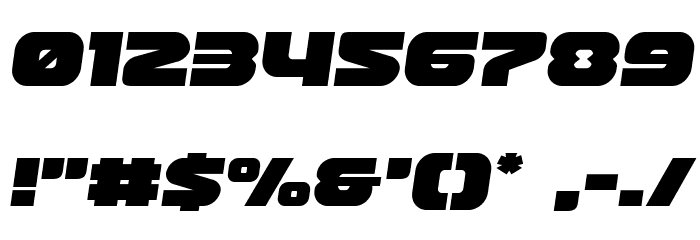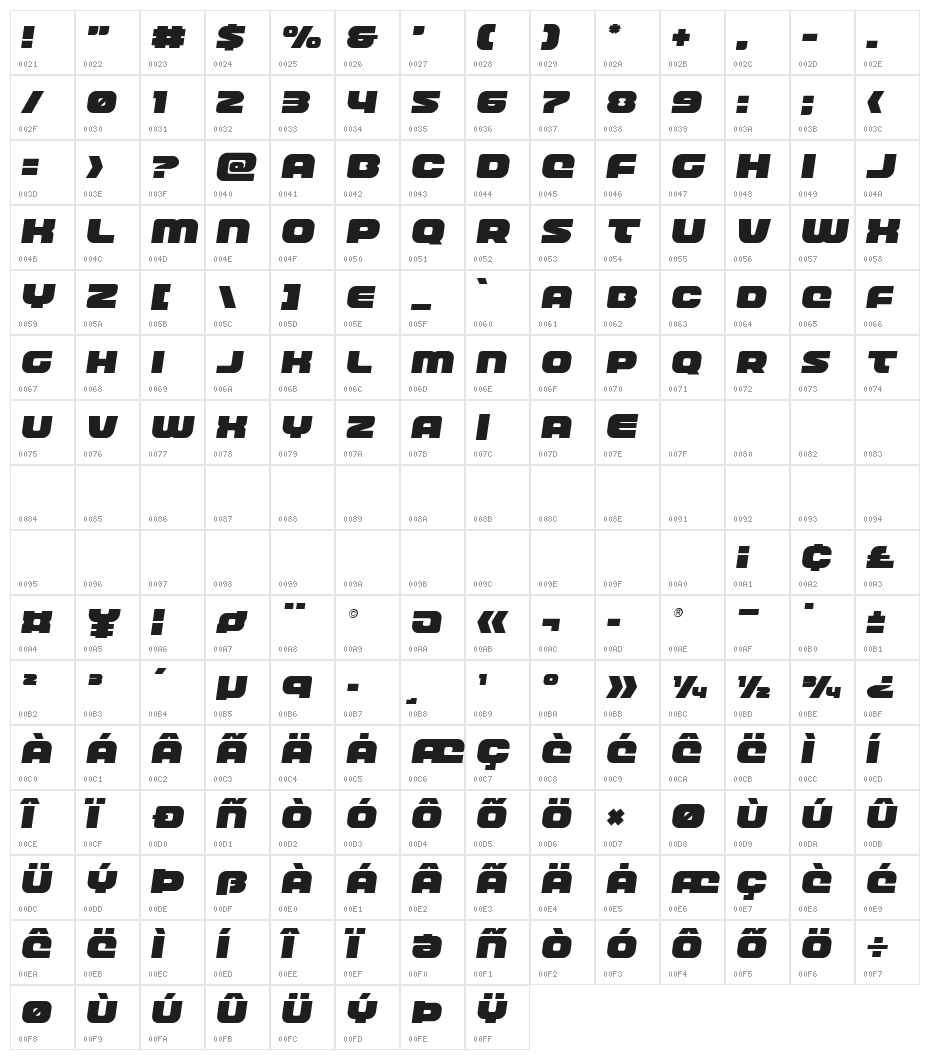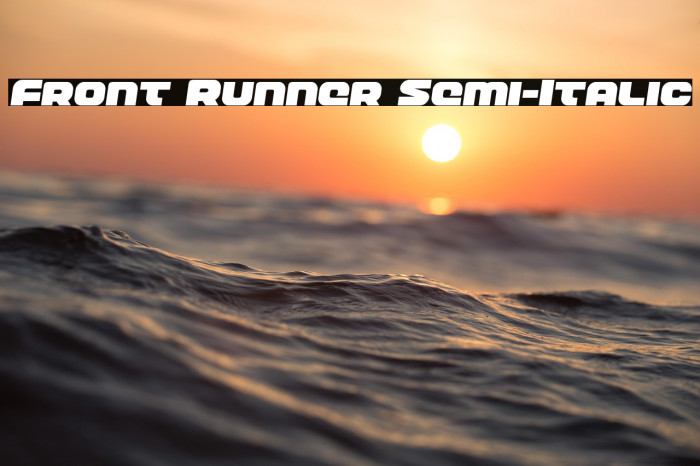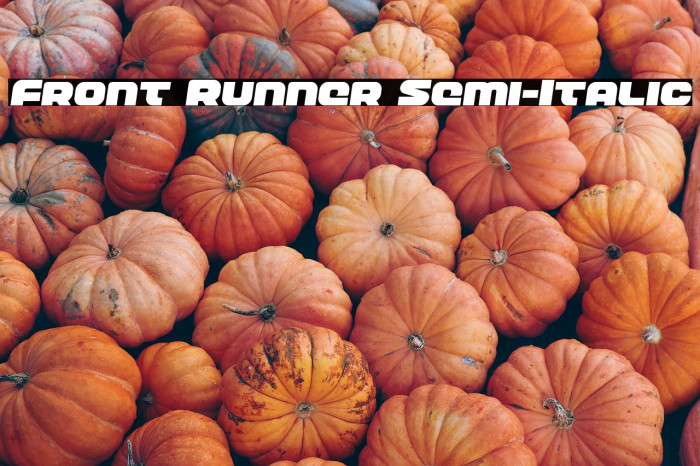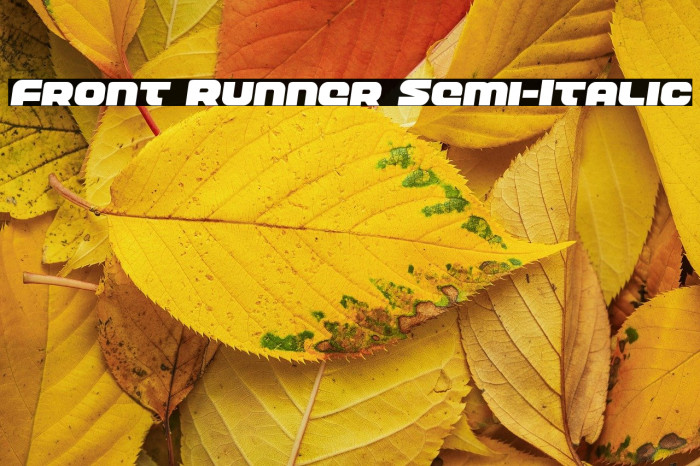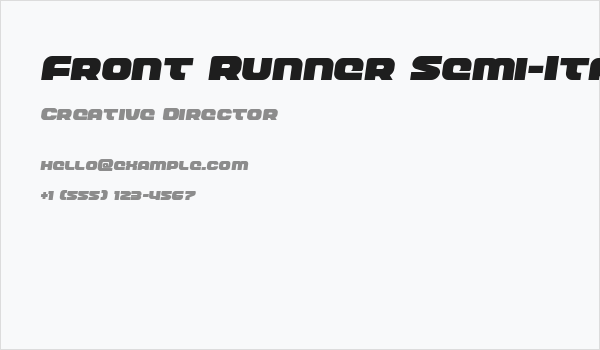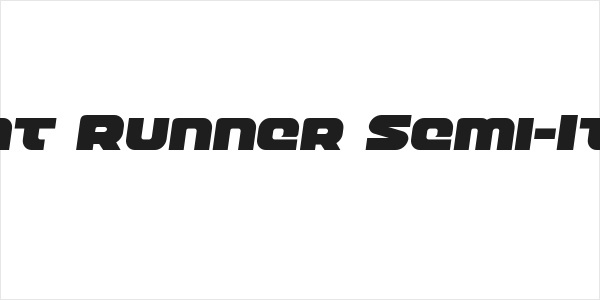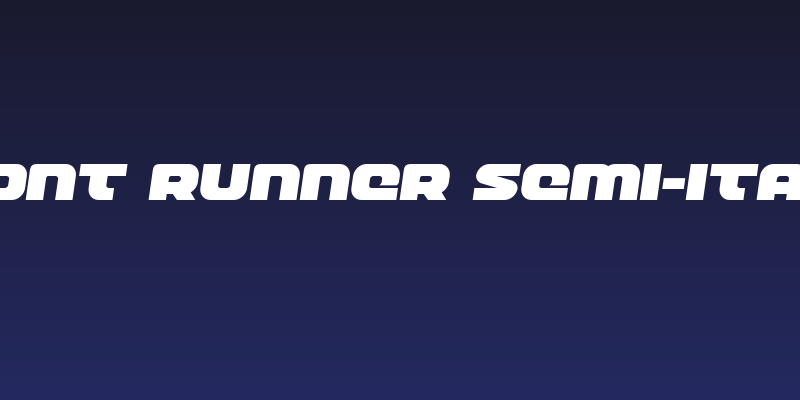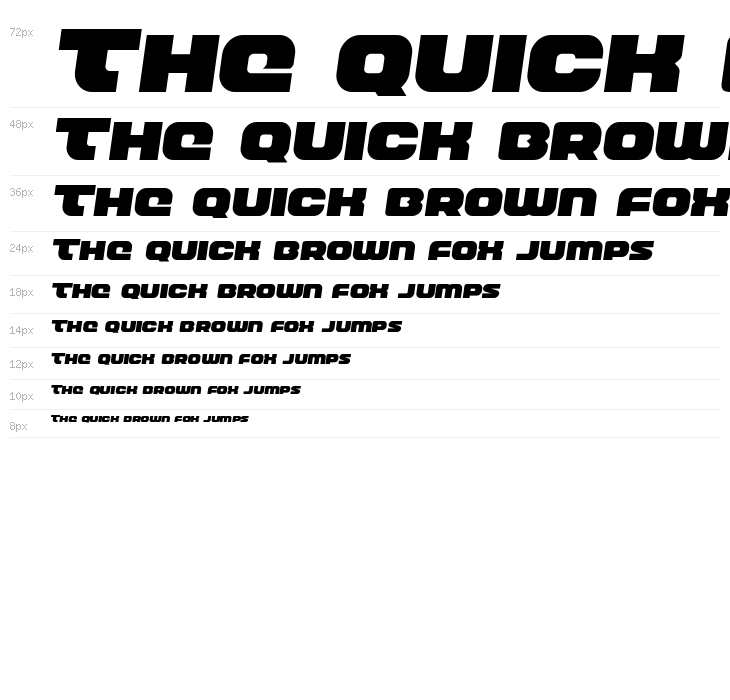
Front Runner Semi-Italic Font
Front Runner Semi-Italic Description
This font features a bold and dynamic style with a semi-italic slant, giving it a sense of movement and energy. The characters are wide and robust, with a strong presence that makes them stand out. The strokes are thick and consistent, providing a uniform appearance across all characters. The design incorporates smooth curves and sharp angles, creating a modern and futuristic look. The font is highly legible, even at smaller sizes, making it versatile for various design applications. Its unique style is suitable for projects that require a bold statement, such as sports branding, automotive designs, or tech-related themes.
| Proposed Projects | Ideal for sports branding, automotive designs, tech-related themes, and dynamic headlines. |